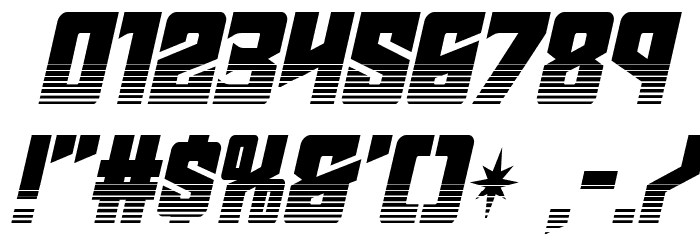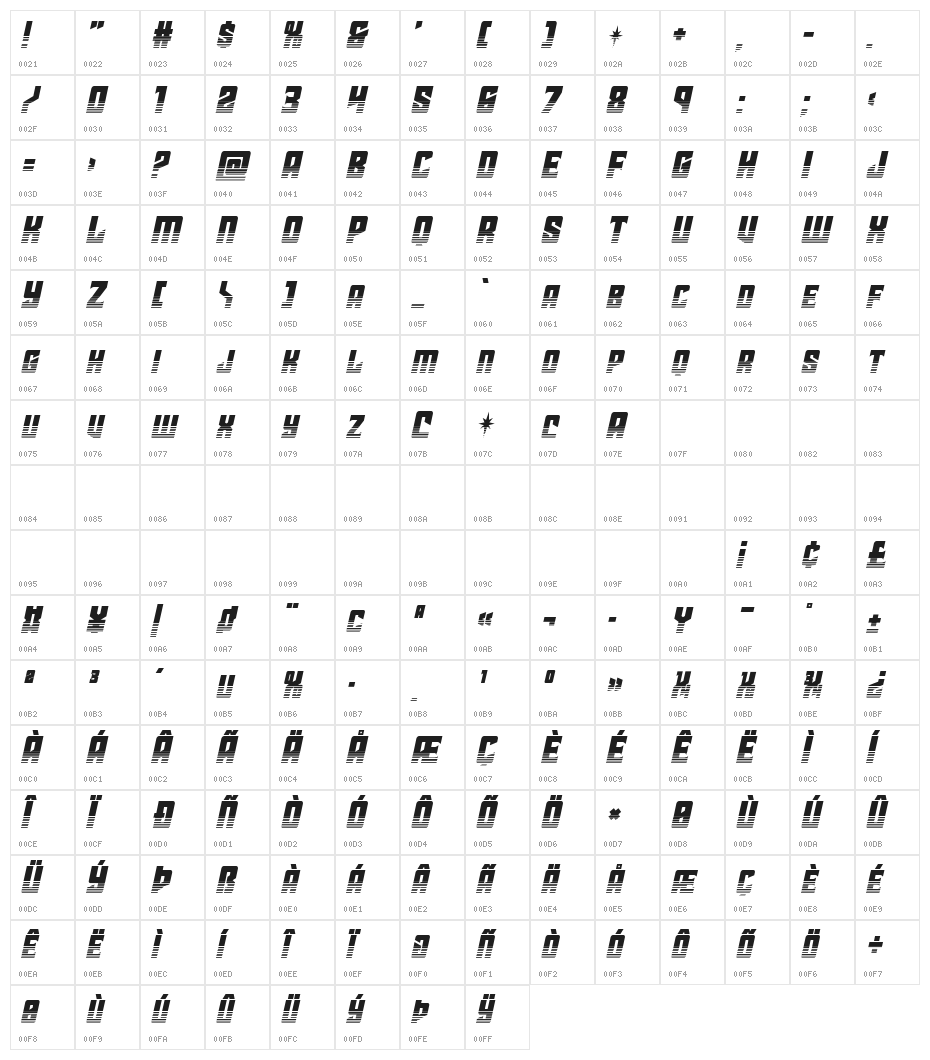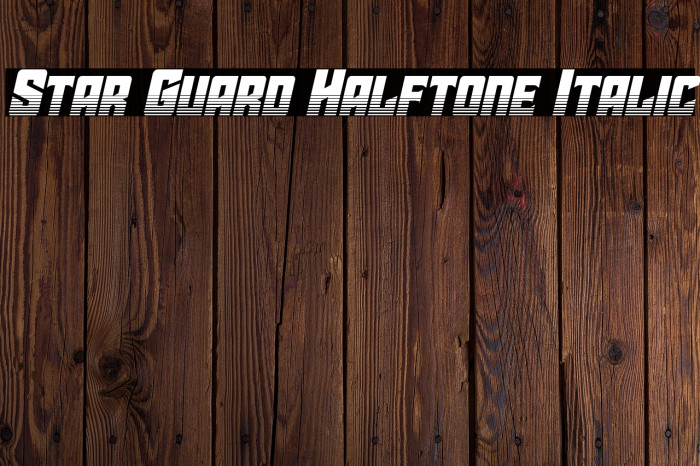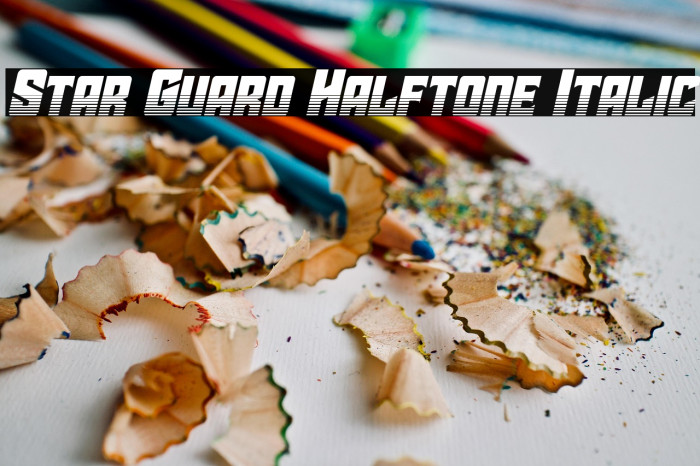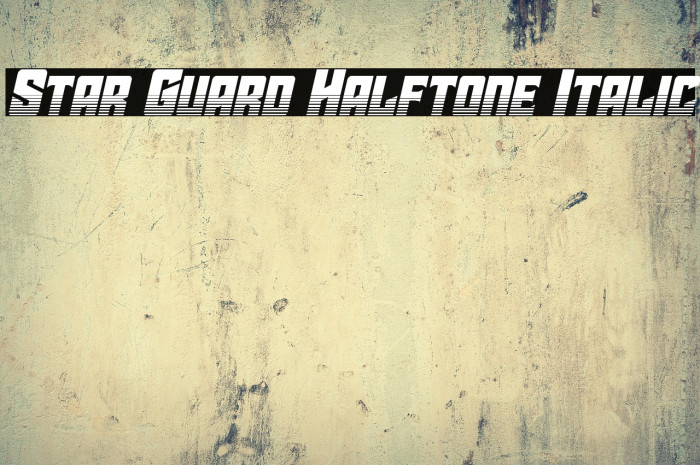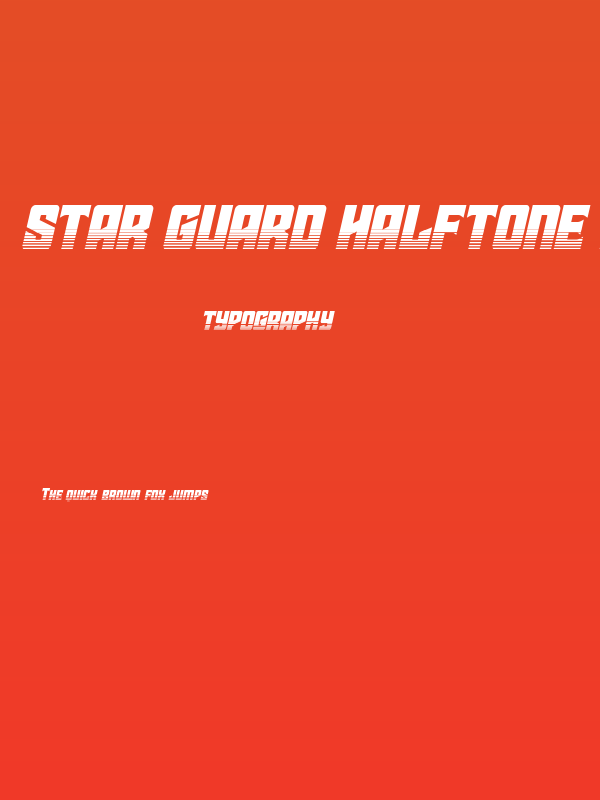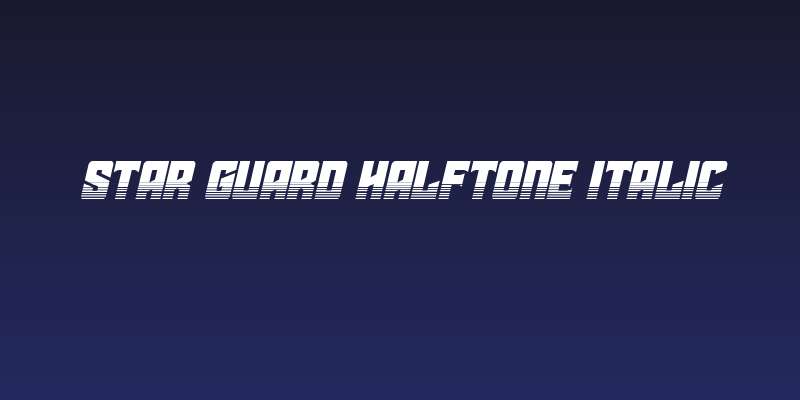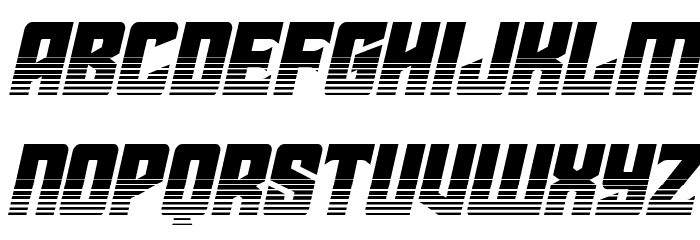
Star Guard Halftone Italic Font
Star Guard Halftone Italic Description
This font features a bold, italicized design with a distinctive halftone pattern that gives it a dynamic, futuristic appearance. The uppercase and lowercase letters are designed with a strong geometric structure, while the numbers and special characters maintain the same bold aesthetic. The halftone effect creates a sense of motion and depth, making it ideal for eye-catching designs. The characters are slightly condensed, enhancing the compact and powerful look. The font's unique style is perfect for projects that require a modern and energetic feel.
| Overall Style | Futuristic, Dynamic |
| Proposed Projects | Ideal for sci-fi themed posters, video game graphics, modern branding, and dynamic headlines. |